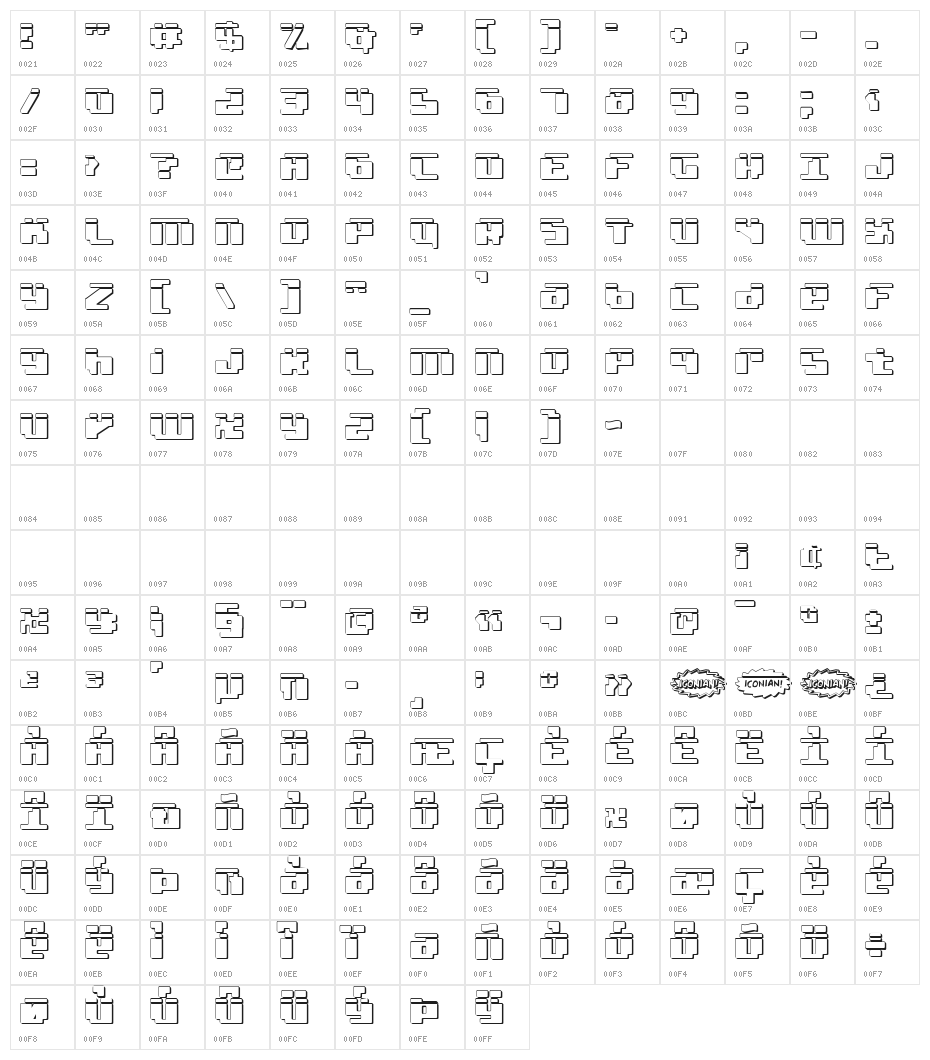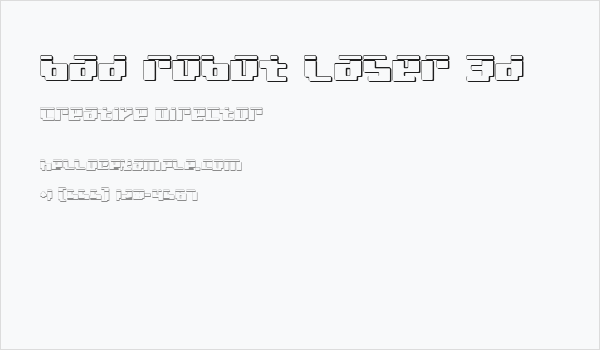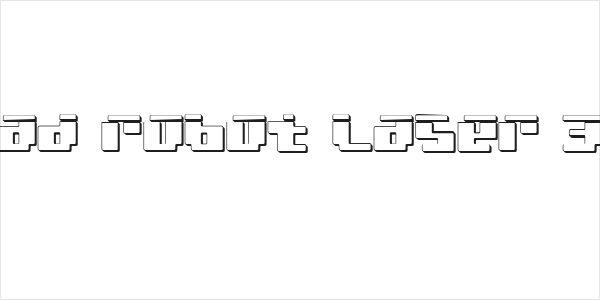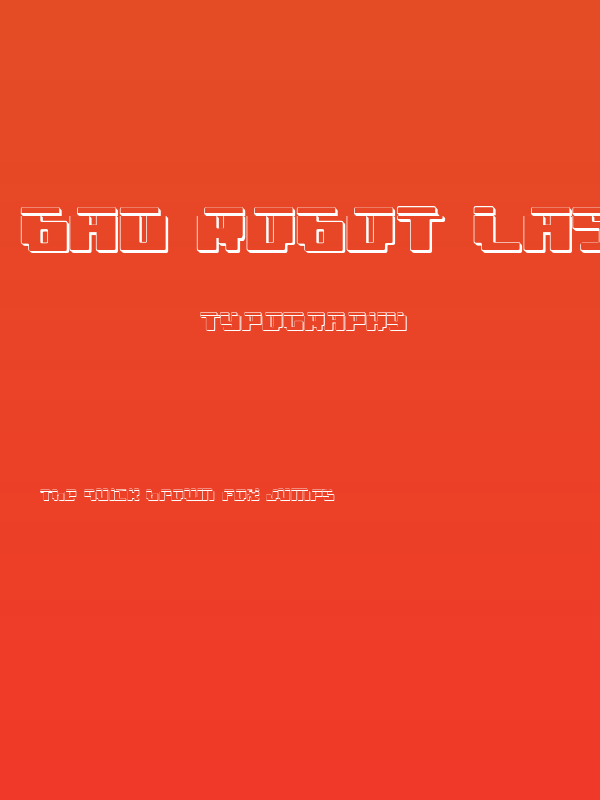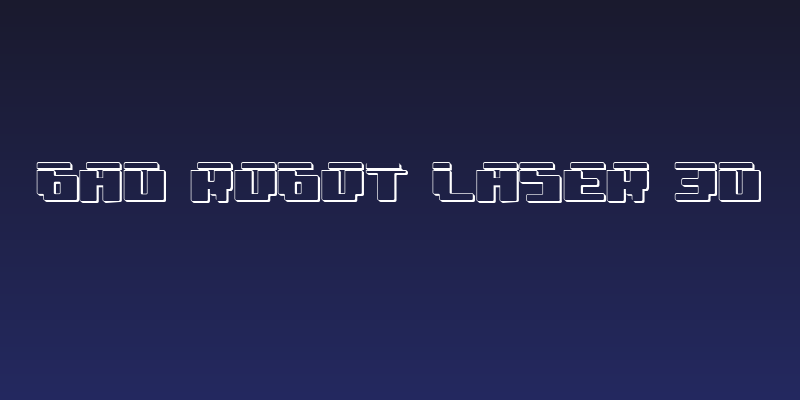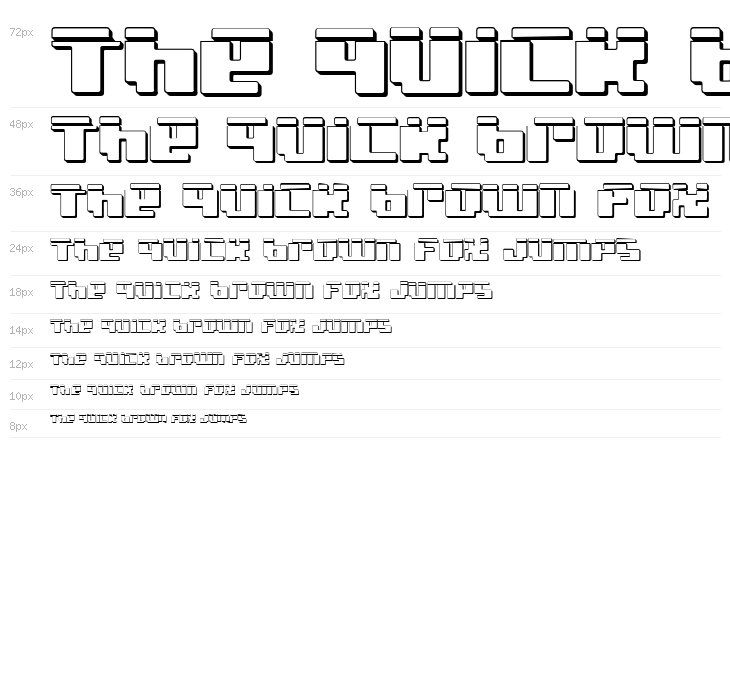
bad robot laser 3d Font
bad robot laser 3d Description
This font features a futuristic and geometric design, characterized by its bold, block-like structure. Each character is outlined with a consistent thickness, creating a three-dimensional effect. The angular and squared-off edges give it a mechanical and robotic appearance, reminiscent of digital or sci-fi themes. The uniformity in the design ensures readability while maintaining a distinct style that stands out. This font is ideal for projects that require a modern and technological aesthetic, such as video game titles, tech branding, or digital media.
| Proposed Projects | Ideal for video game titles, tech branding, digital media, and sci-fi themed projects. |